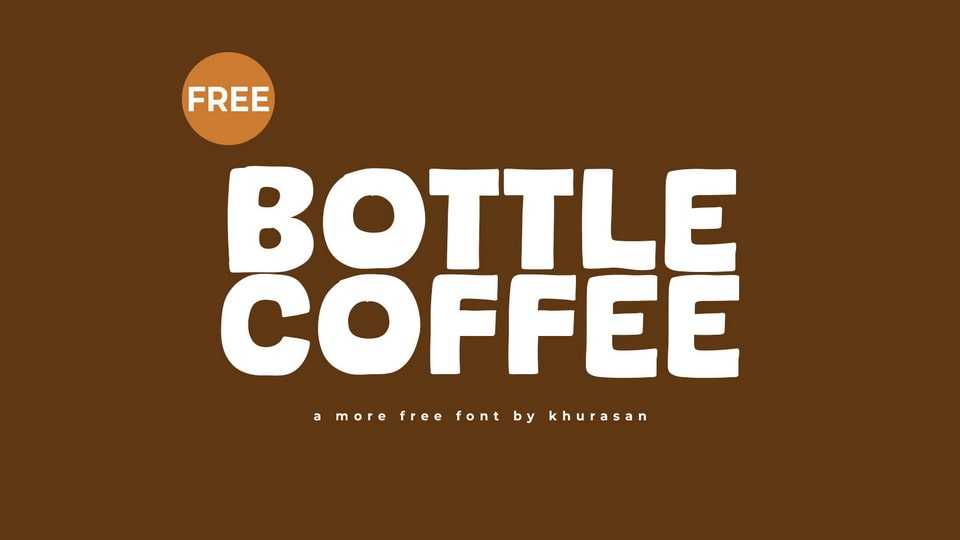
Download Bottle Coffee font, a bold and playful hand-crafted typeface that exudes creativity and cheerfulness. It features robust, lively letterforms with whimsical curves and delightful details.